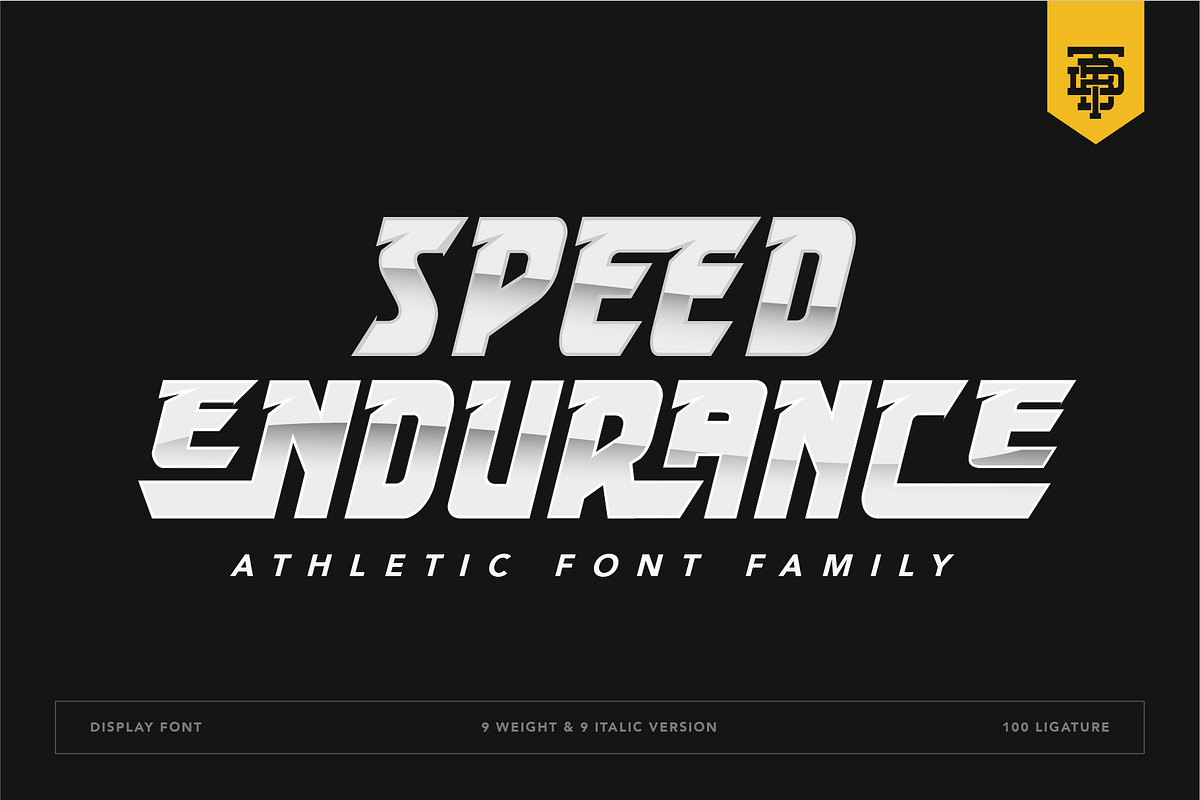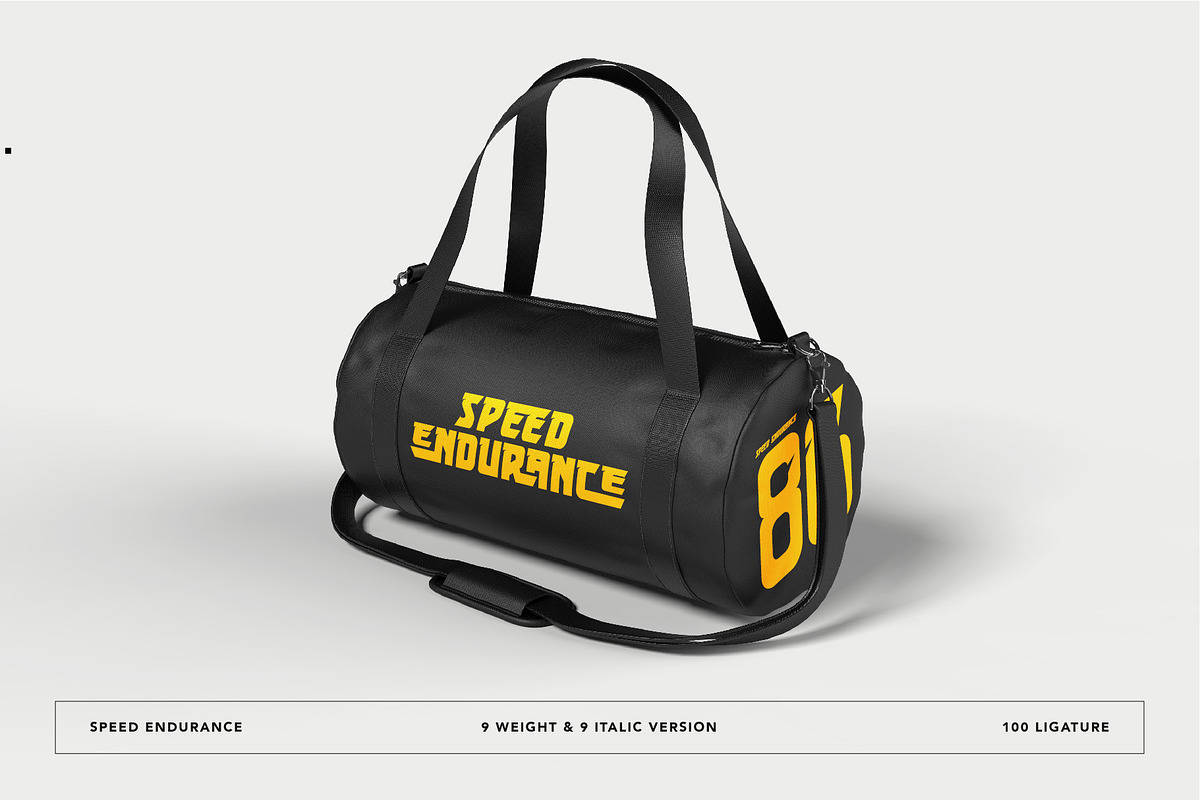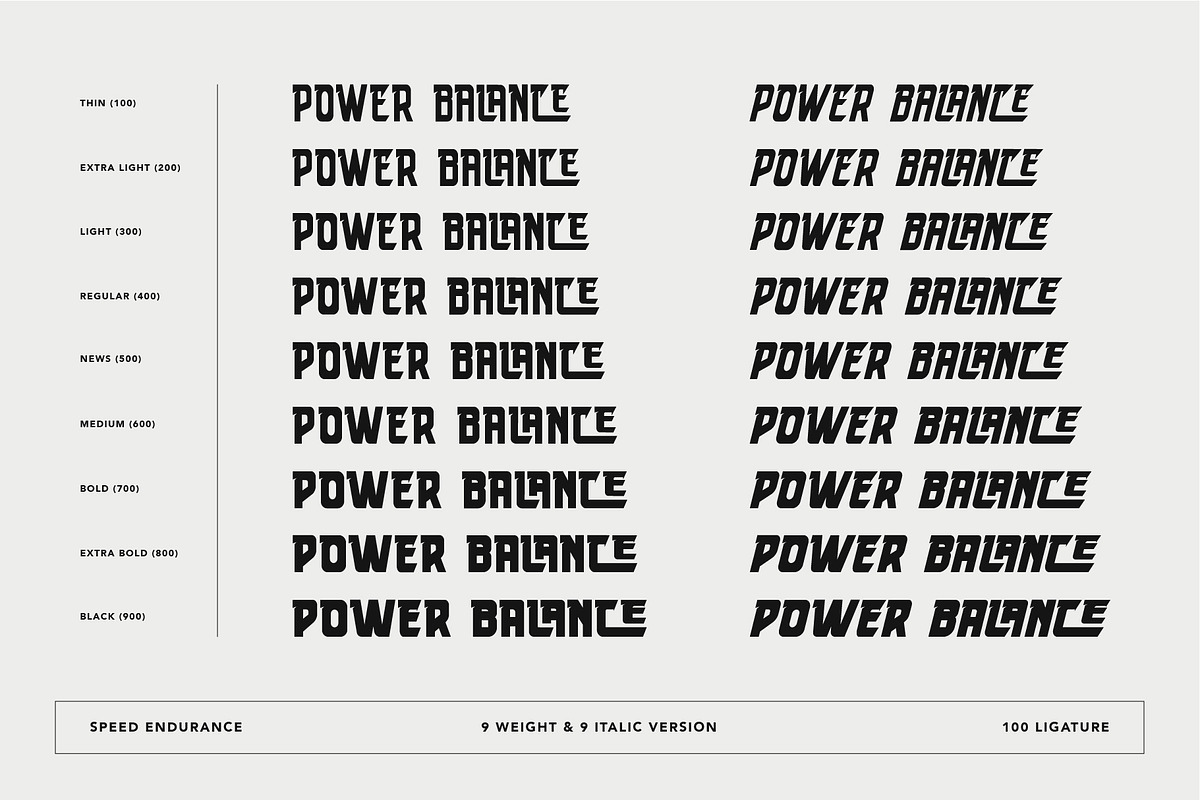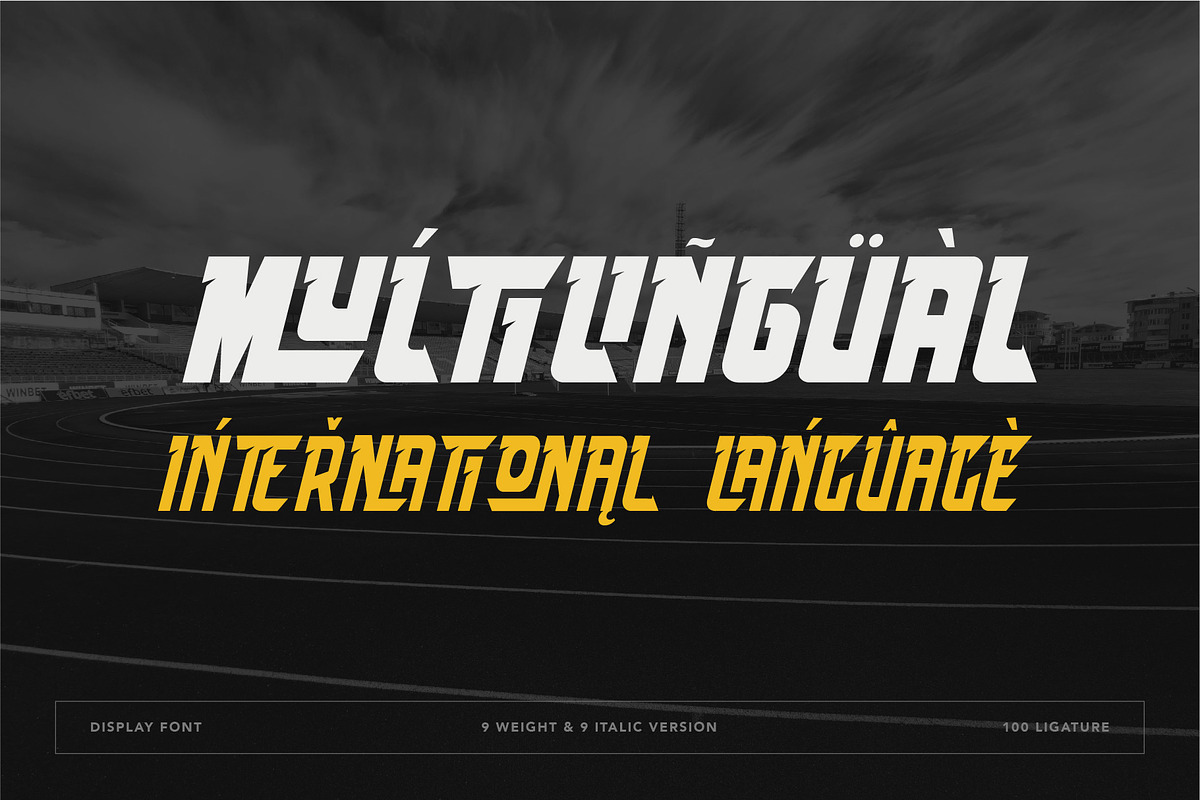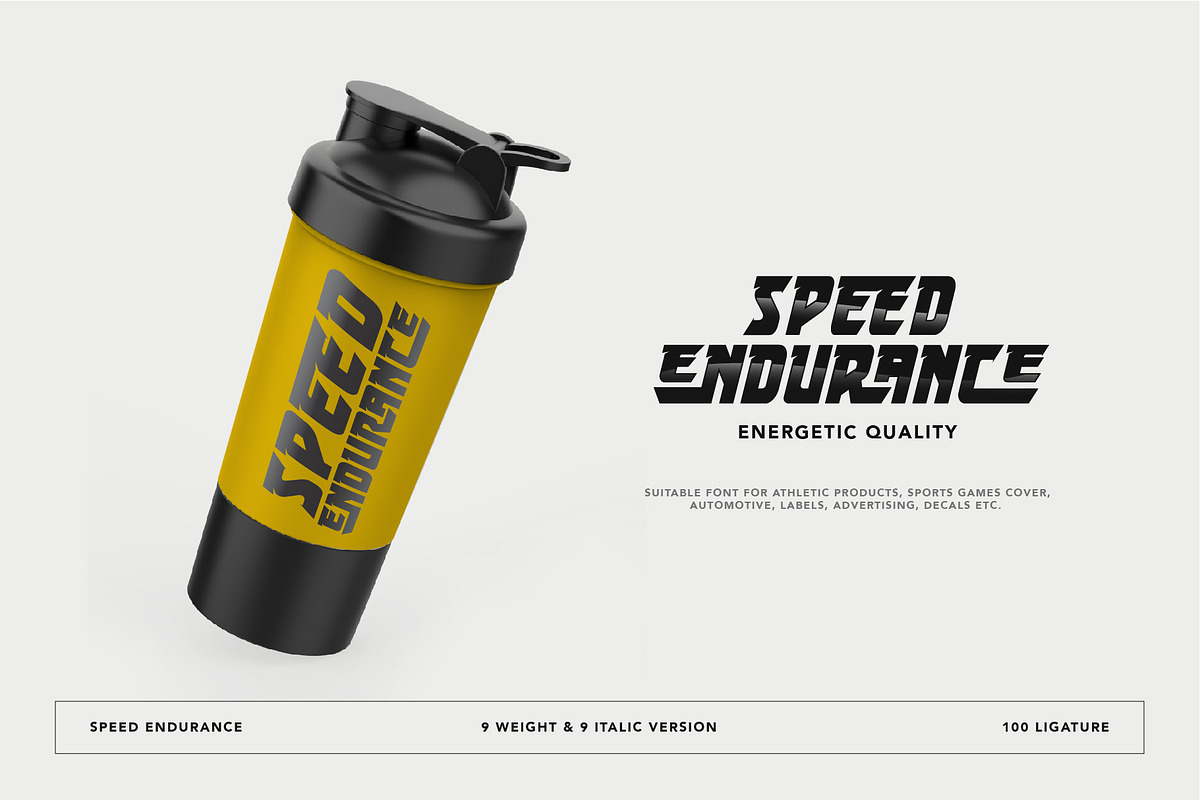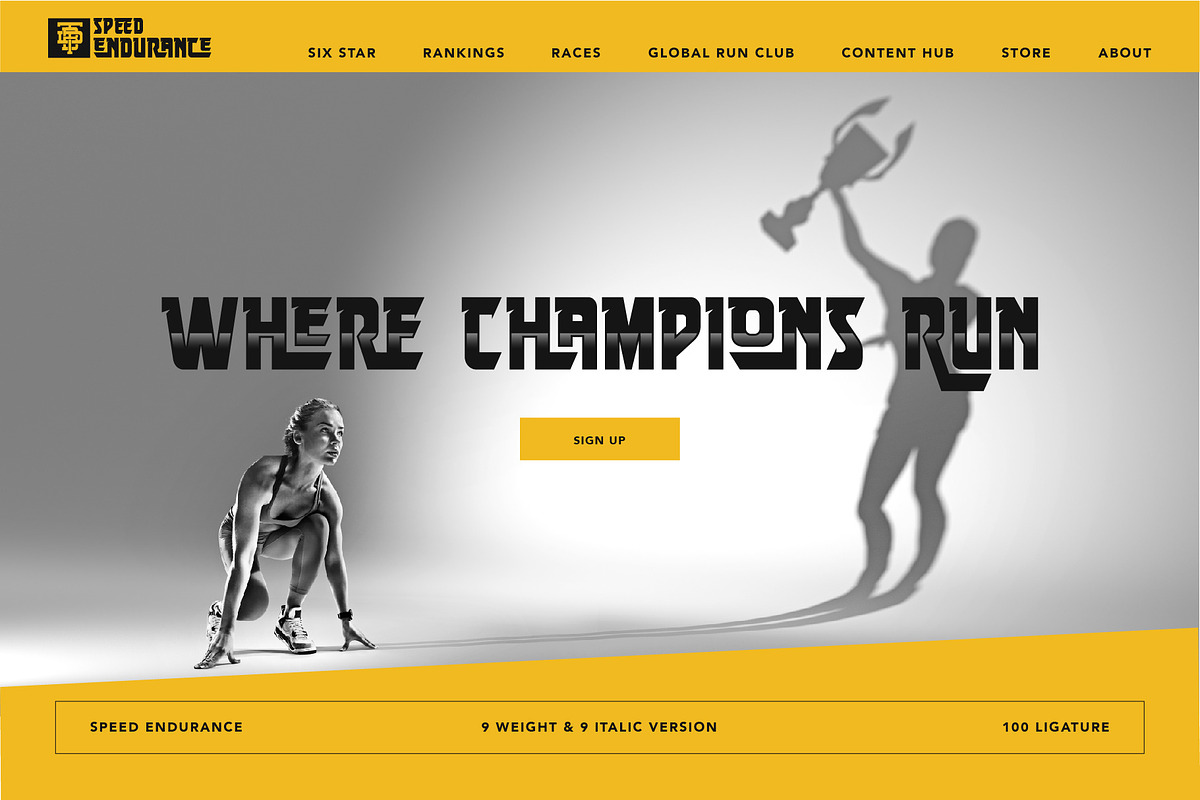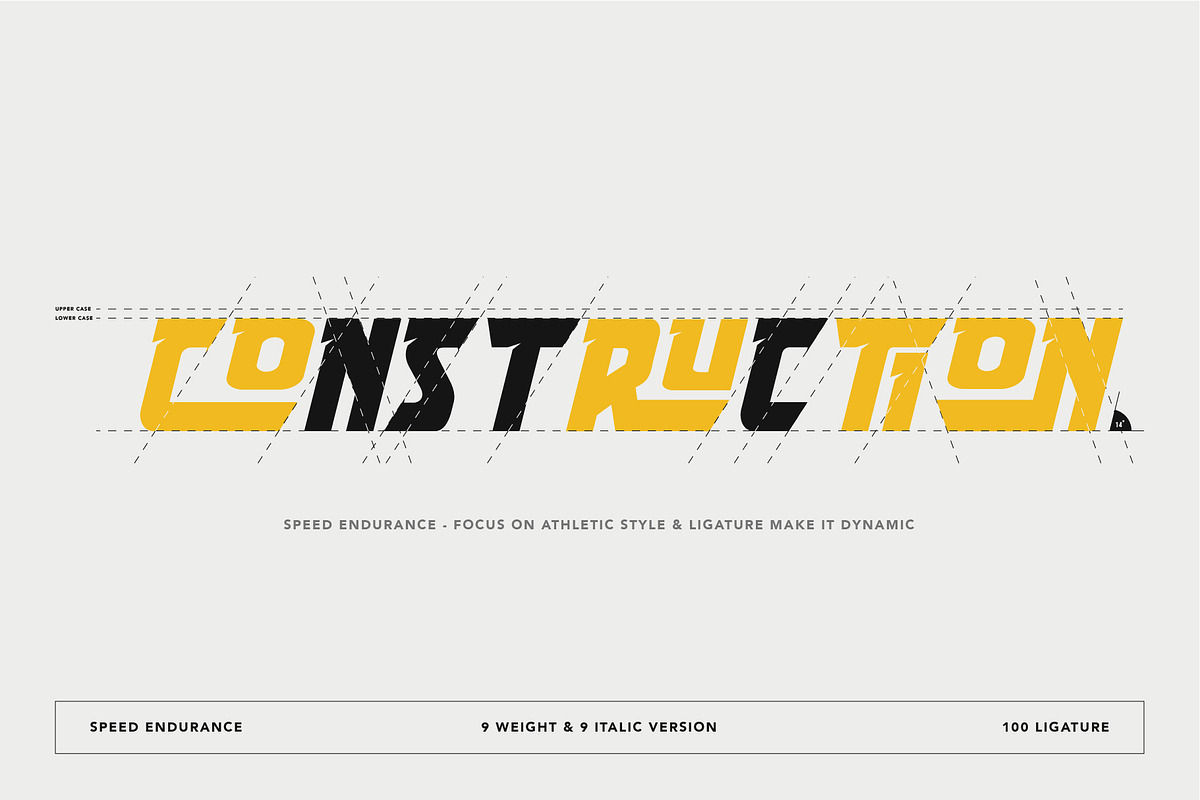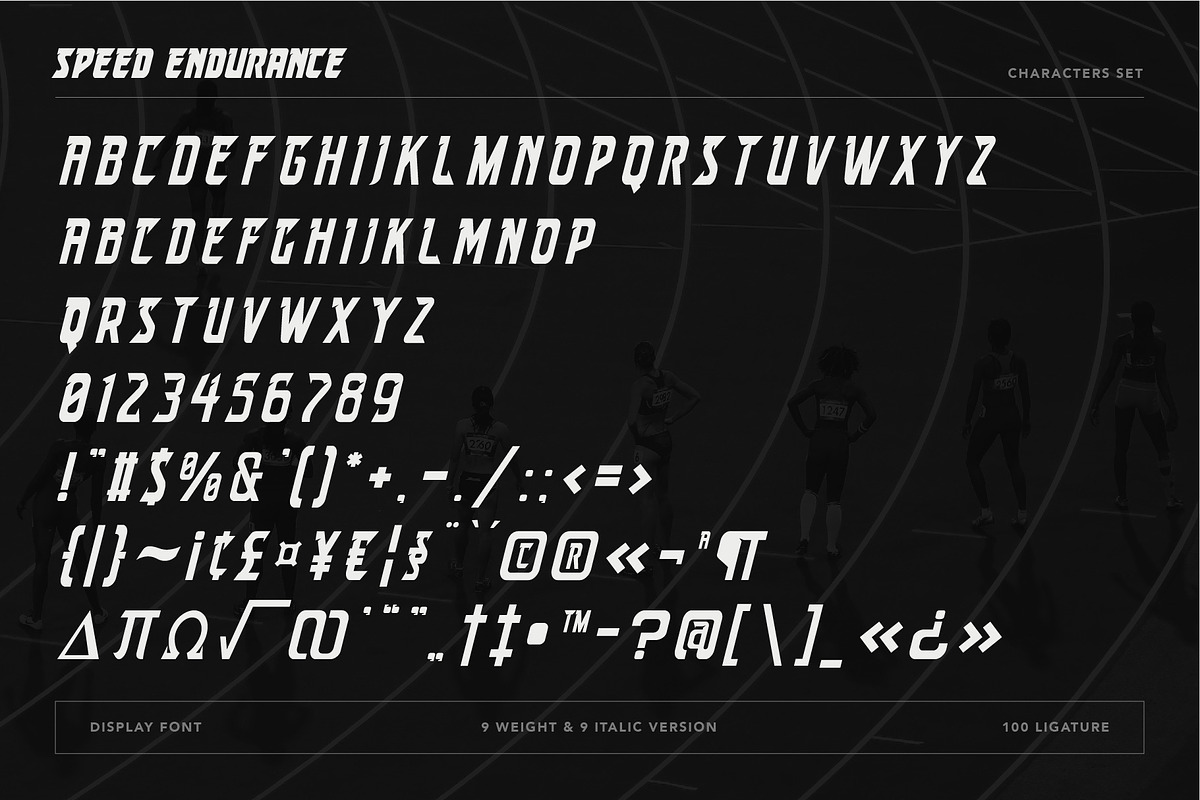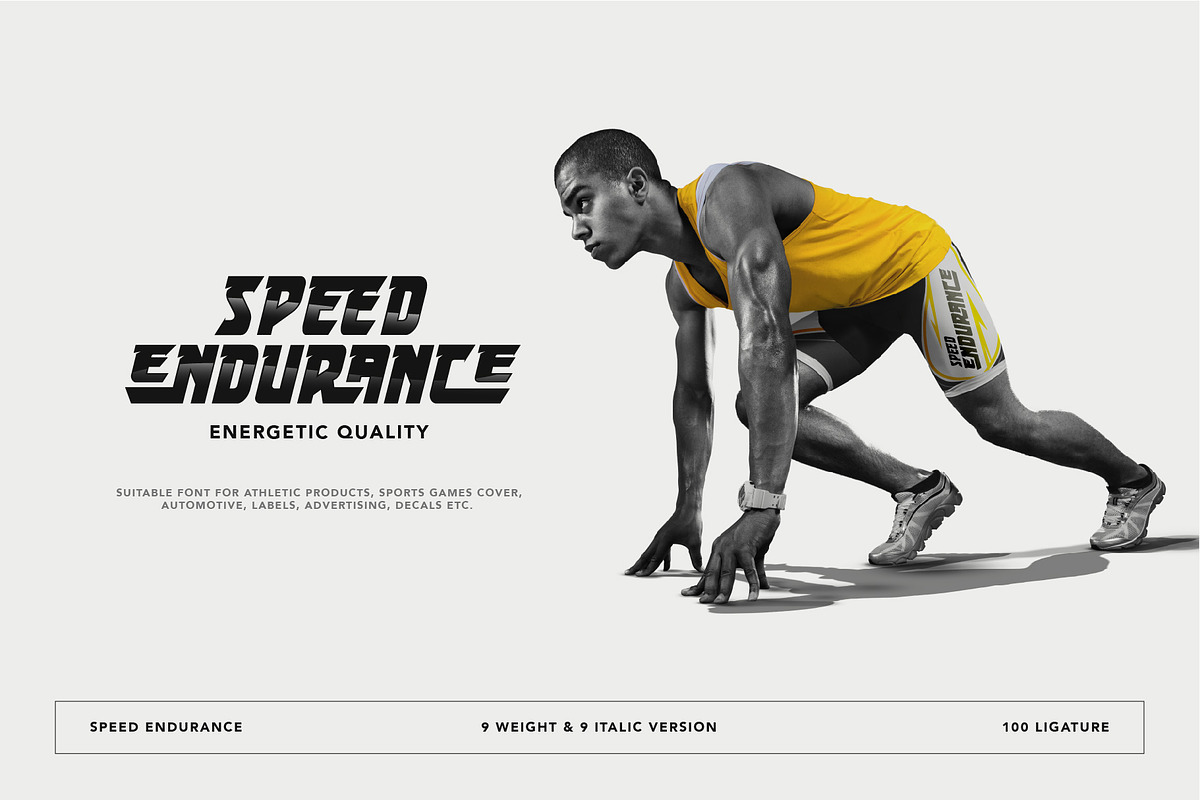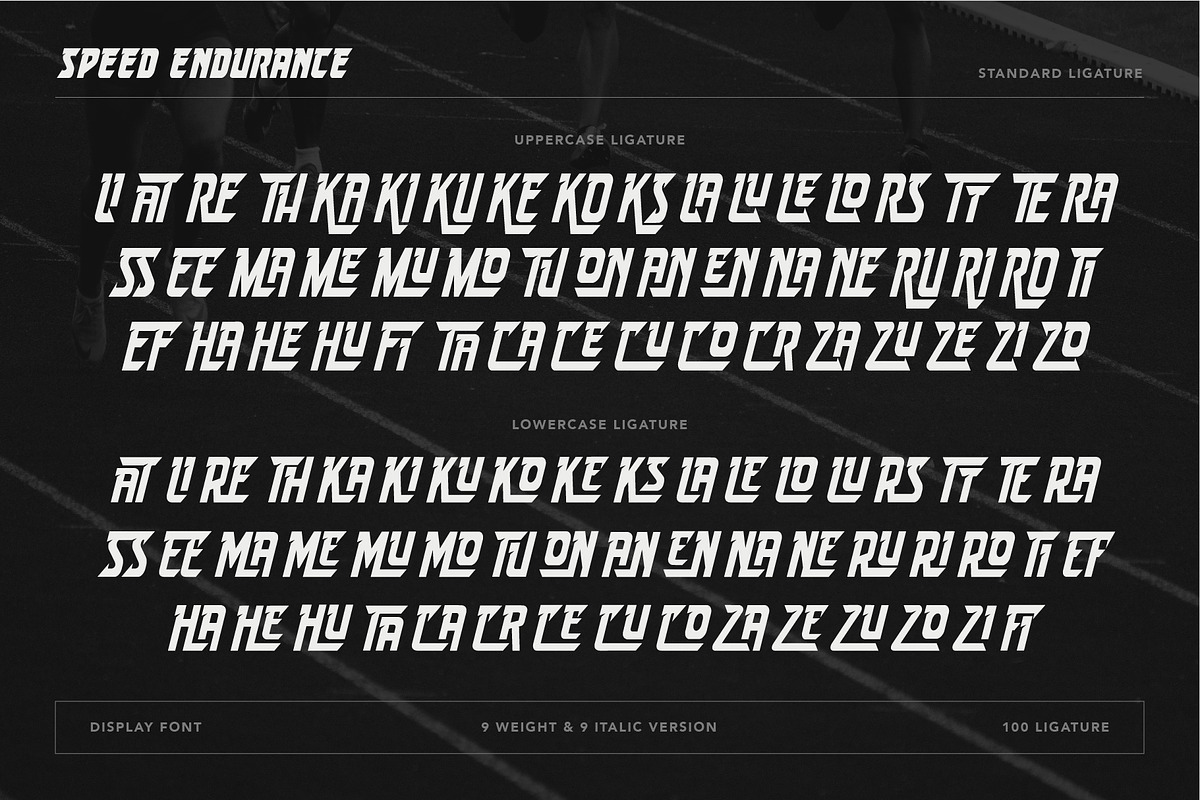
Speed Endurance
Speed Endurance is athletic font family, consists of energetic & sports looks; sharp lines with a verified tilt angle that will emphasize a modern style.
A perfect choice for athletic products, sports games cover, automotive, labels, advertising decals, etc.
A-Z Character Set
a-z Character set
Numerals & Punctuations (OpenType Standard)
ligatures